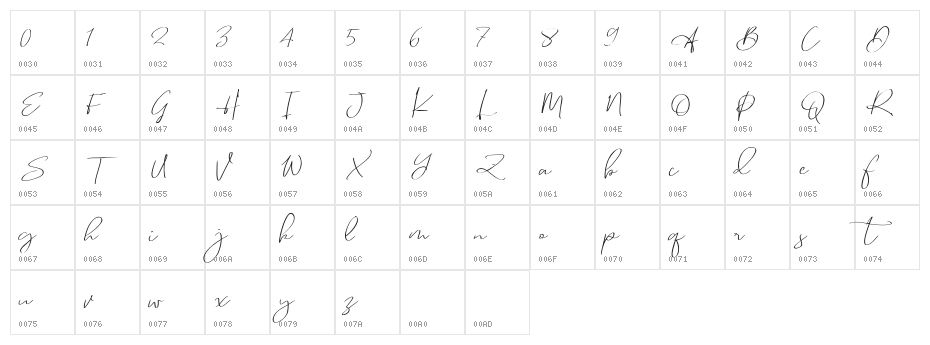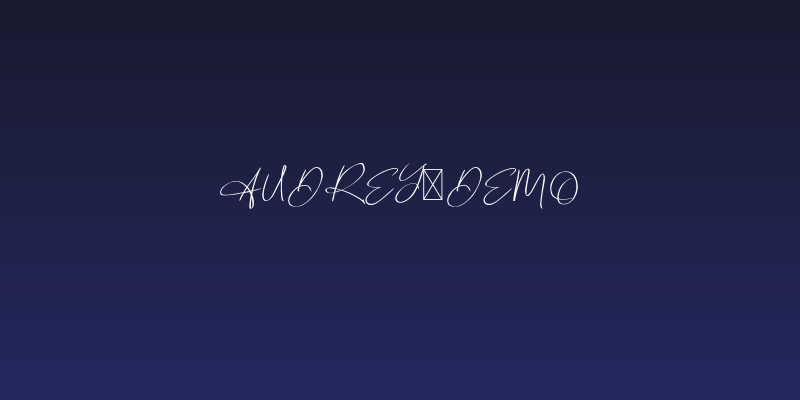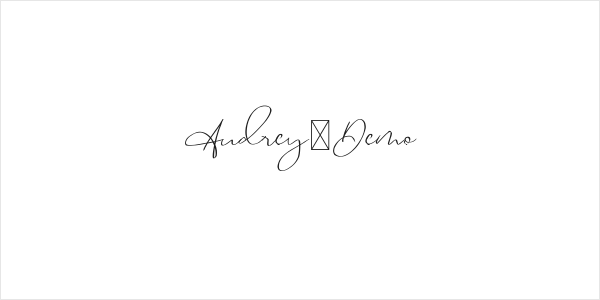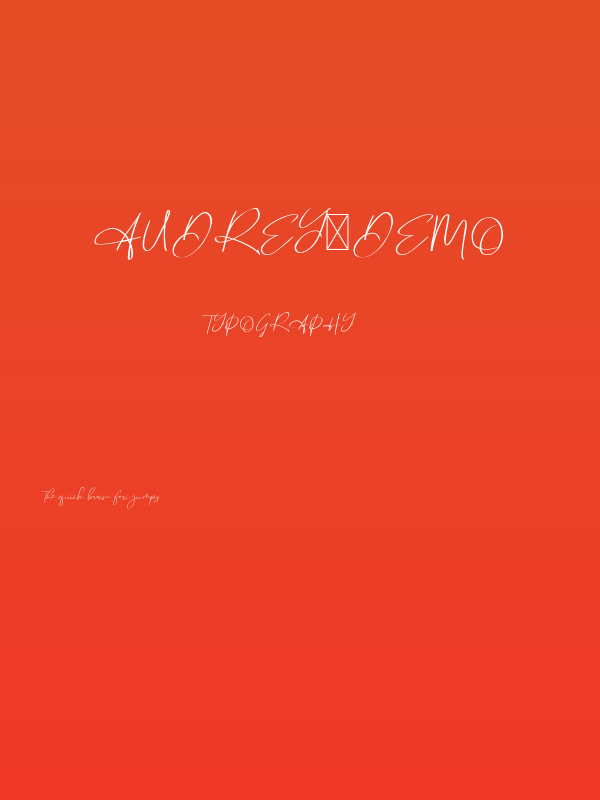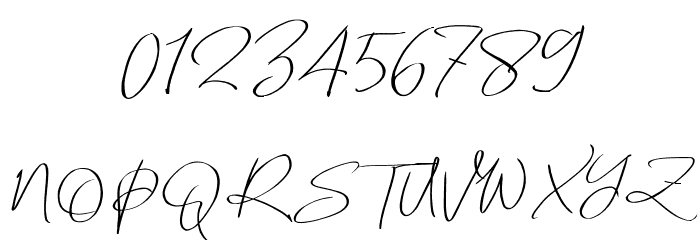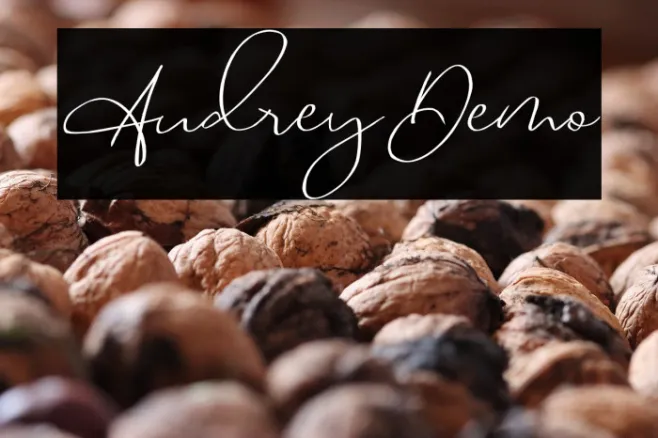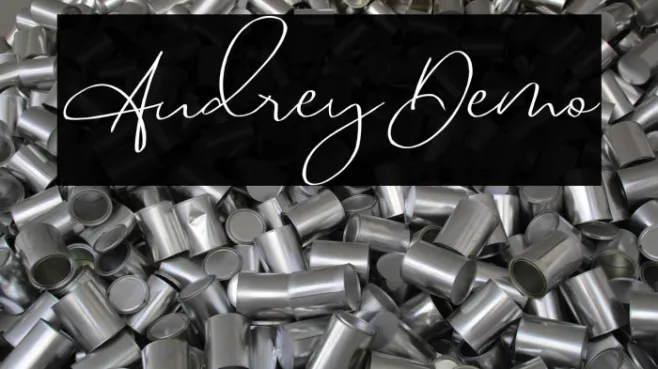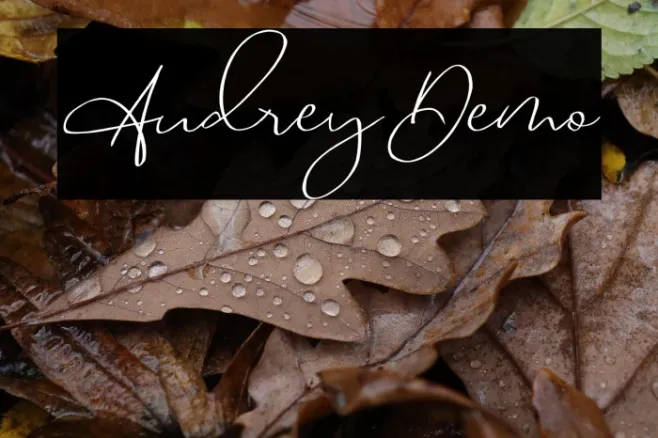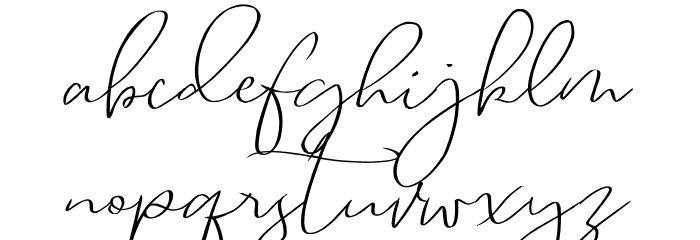
Audrey_Demo Font
Audrey_Demo Description
This elegant script font features a fluid and graceful style, characterized by its flowing lines and delicate curves. The uppercase letters are bold and striking, while the lowercase letters maintain a consistent, smooth flow. The numerals are distinct and maintain the same elegant style, making them easily readable. Special characters are seamlessly integrated, adding to the font's versatility. This font exudes a sense of sophistication and charm, making it ideal for projects that require a personal touch.
| Proposed Projects | Ideal for wedding invitations, greeting cards, branding, and elegant packaging designs. |